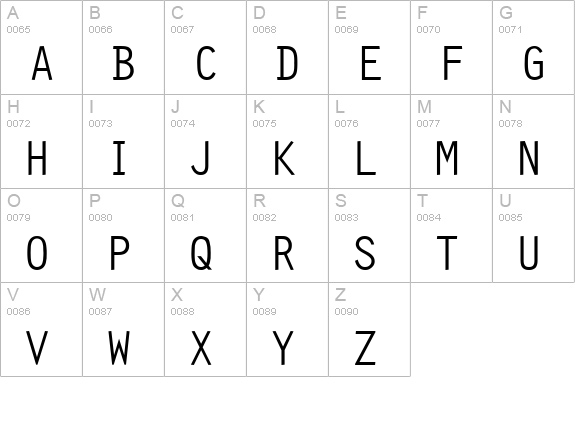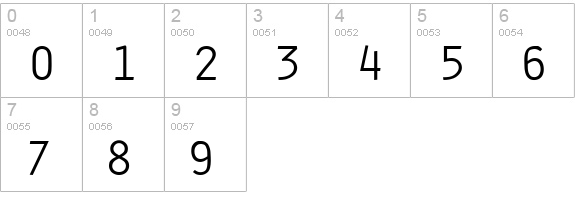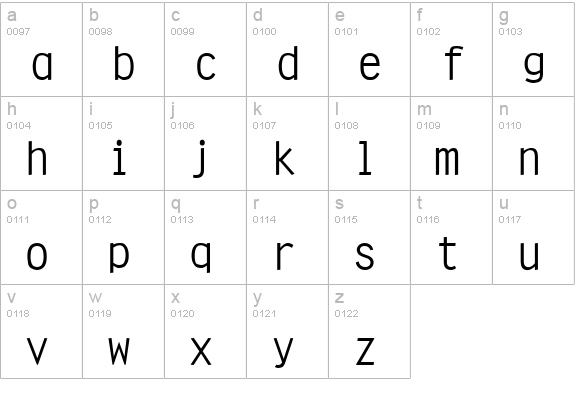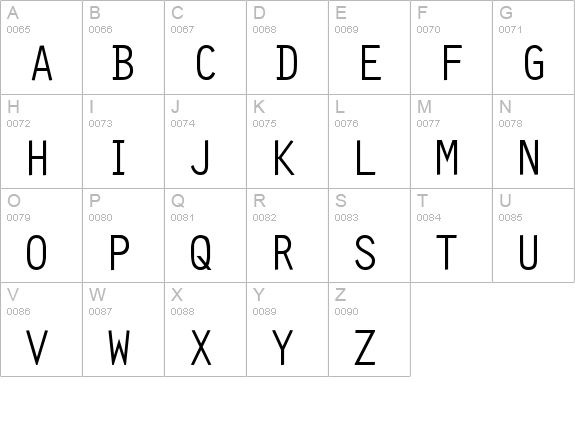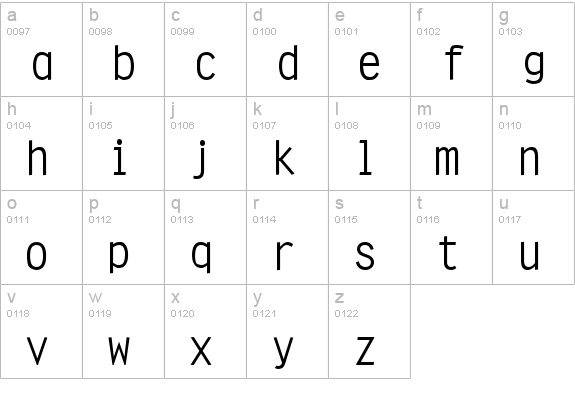
Clean Normal Font Details
Clean Normal is the standard, neutral variant in the Clean typeface family \xE2\x80\x94 well suited to general body text, paragraphs, and standard typographic work.
Clean Normal font is a sleek and modern typeface designed to bring a sense of clarity and simplicity to your projects. With its clean lines and balanced proportions, this font is perfect for creating professional and polished designs. The neutral and unobtrusive appearance of Clean Normal font makes it versatile and suitable for a wide range of applications, from branding to editorial design. What's even better is that Clean Normal font is available for free download at FontsMarket.com. This means you can easily access this high-quality font and use it in your projects without any cost. Don't miss out on the opportunity to enhance your designs with the Clean Normal font – download it now and add a touch of sophistication to your work.